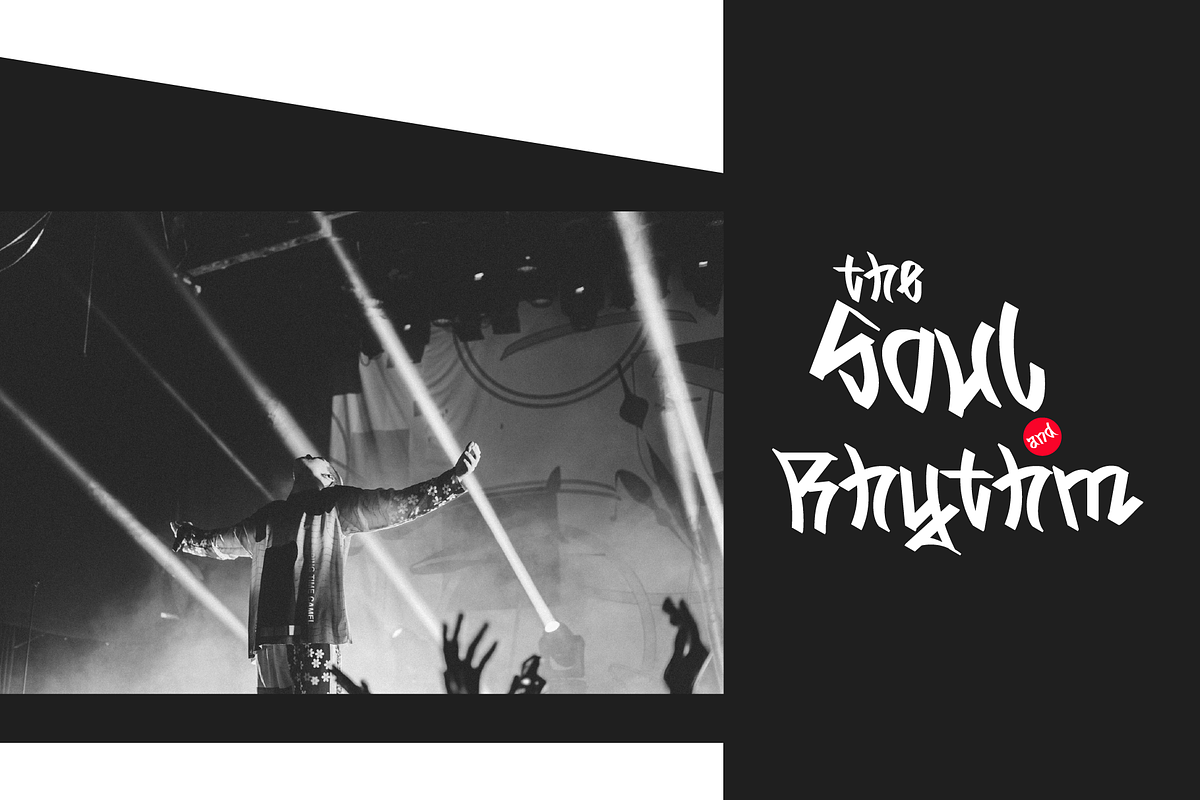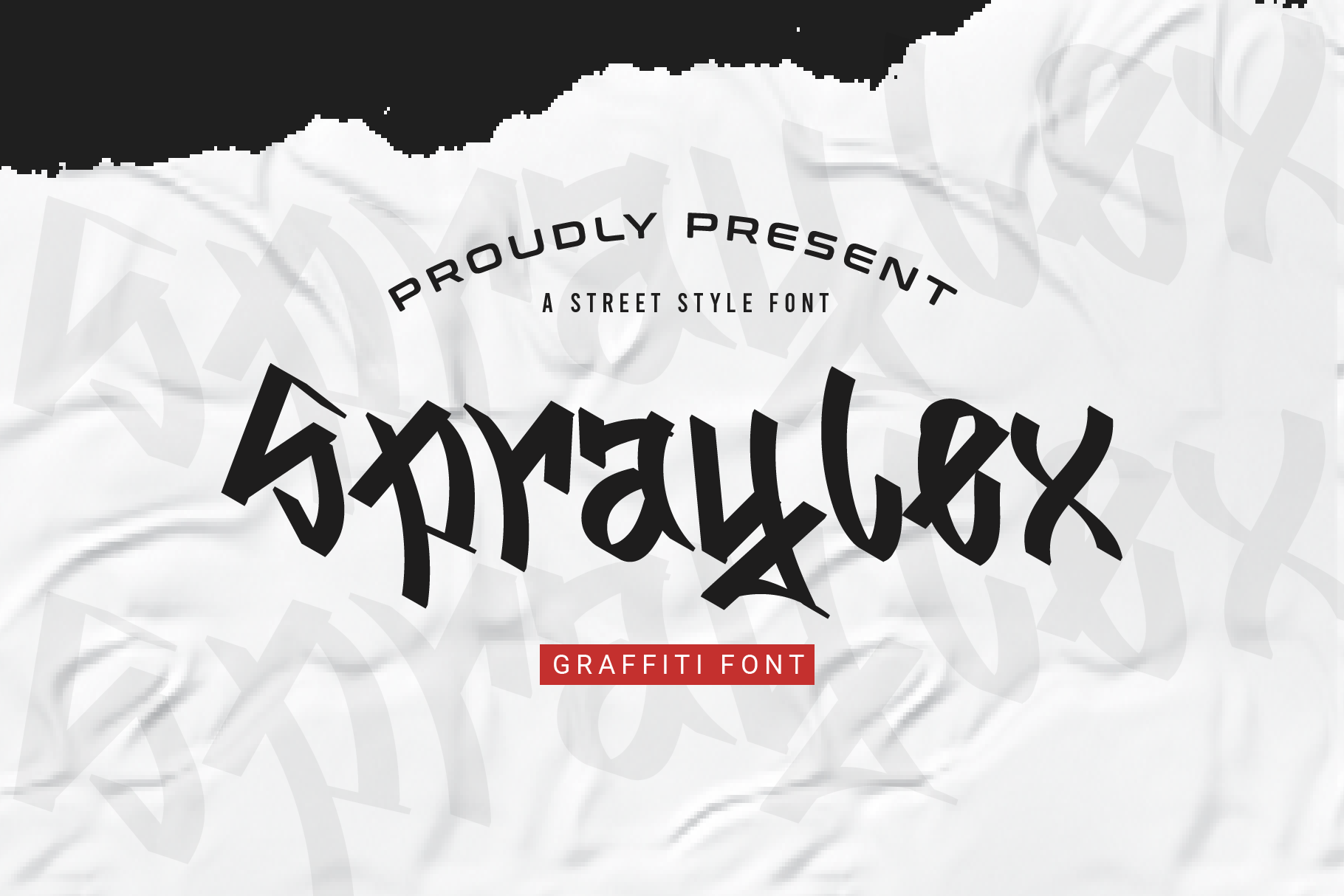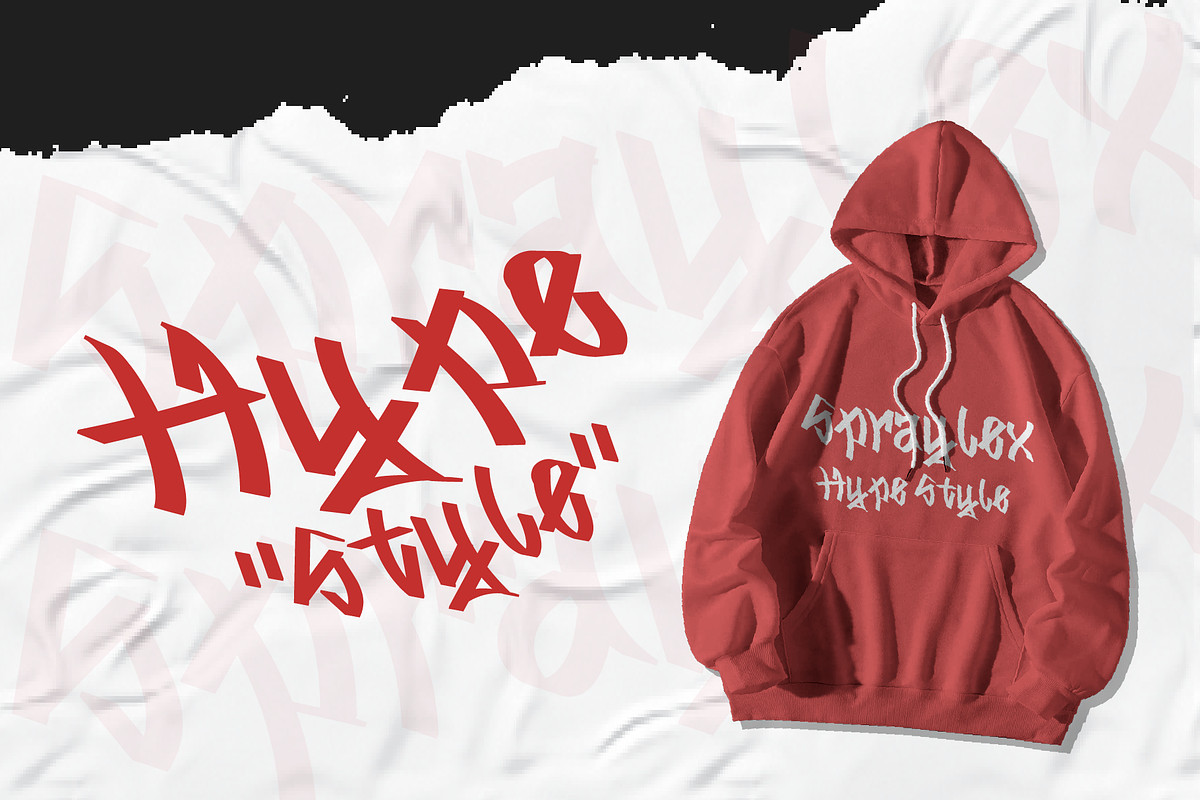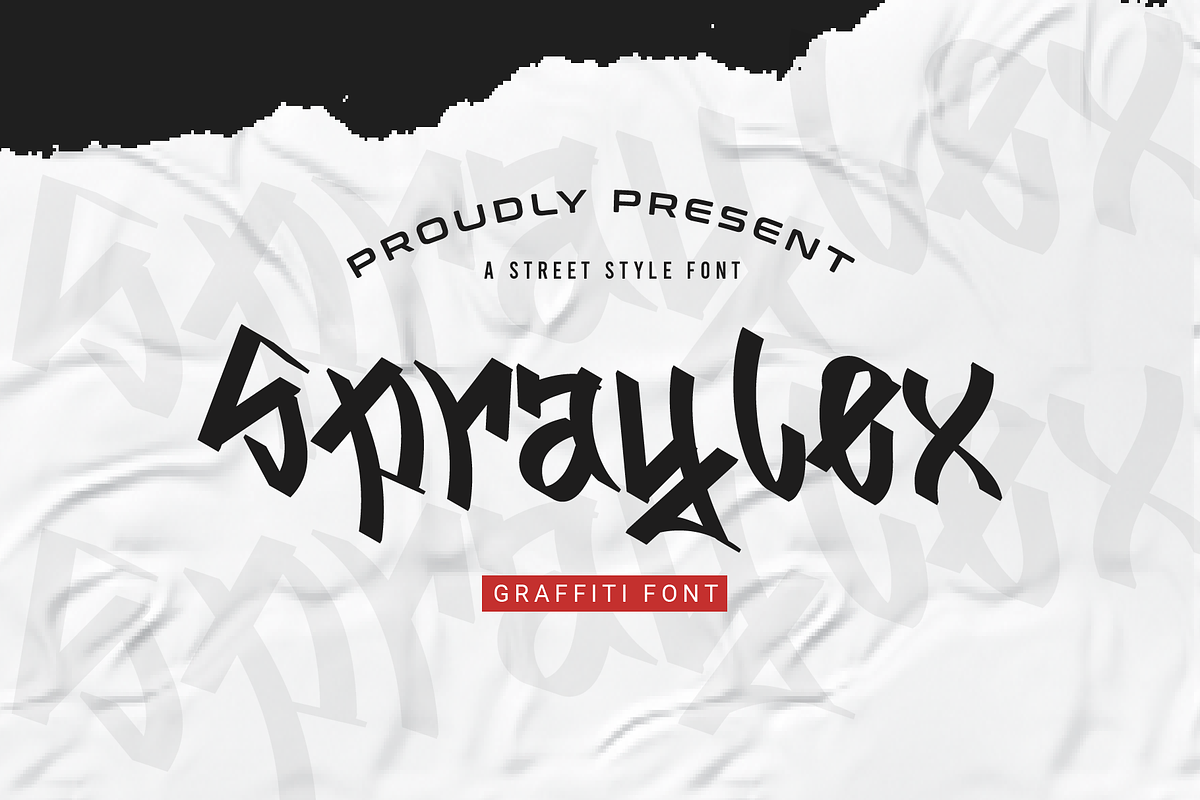
Spraylex Graffiti Font
Spraylex is a new addition to the world of typography. This font is creative, friendly, and perfect for any kind of creative endeavor you may be using.
Contains all capital letters, numbers, and basic punctuation.